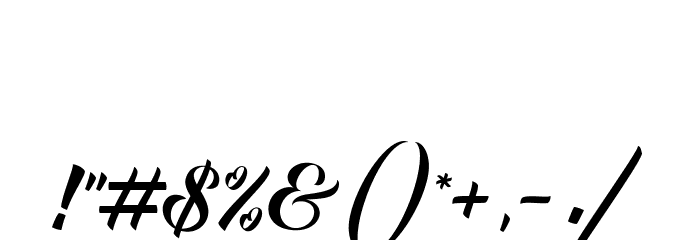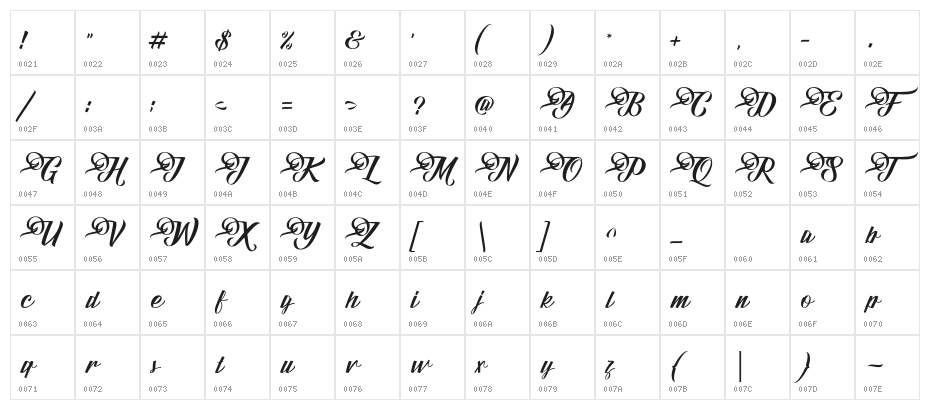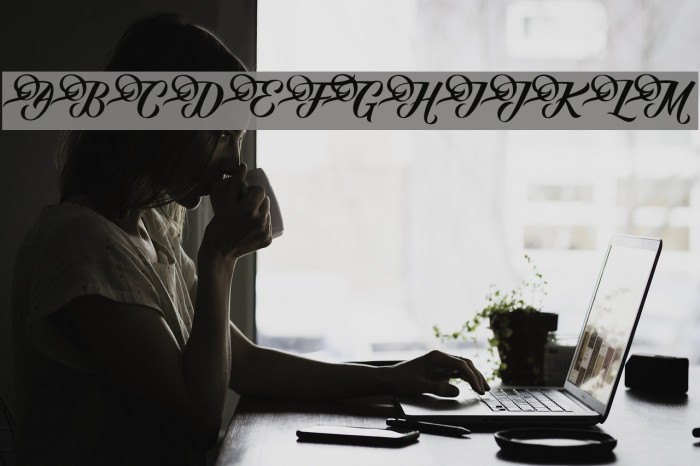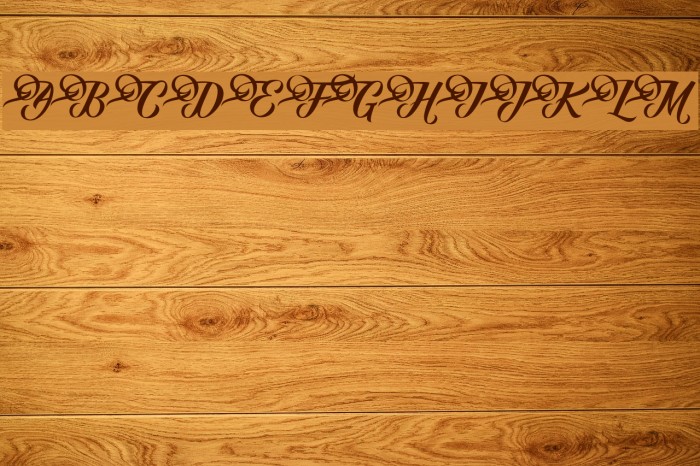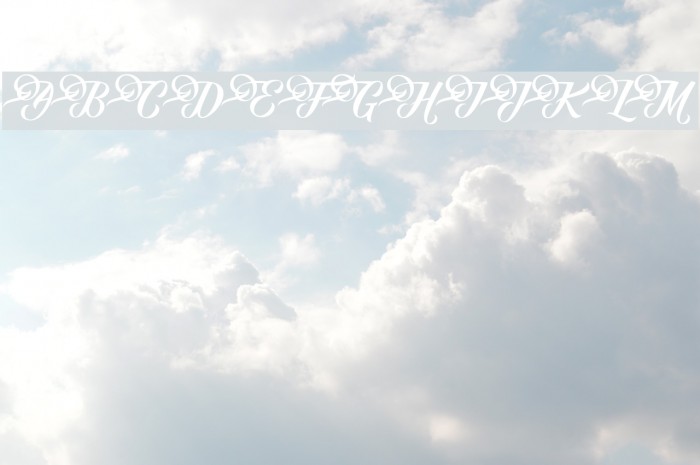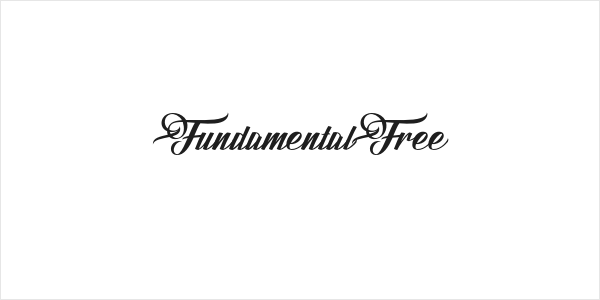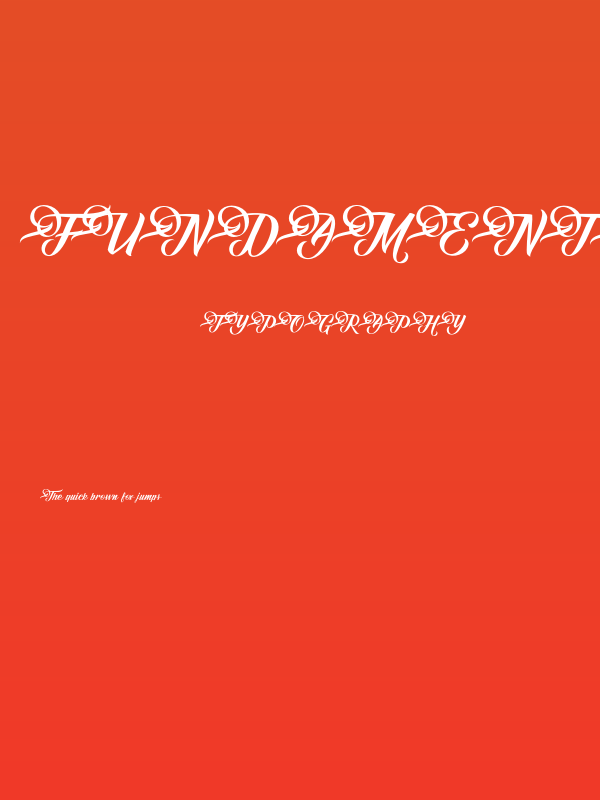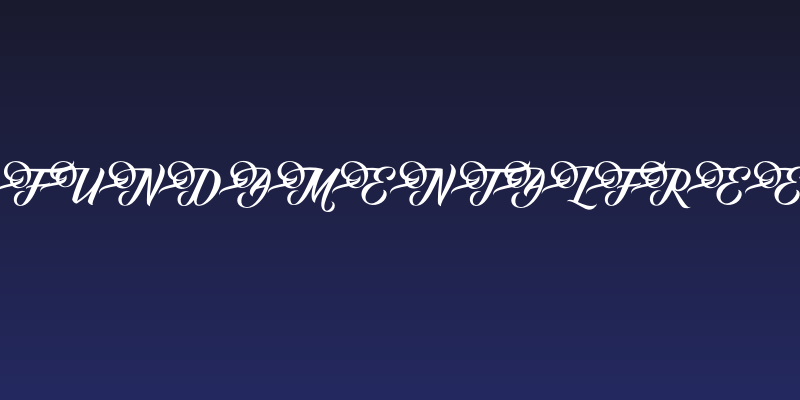
FundamentalFree Font
FundamentalFree Description
This font features an elegant and flowing script style with a classic and decorative flair. The uppercase letters are adorned with intricate loops and swirls, giving them a sophisticated and ornate appearance. The lowercase letters maintain a smooth and connected cursive form, enhancing readability while retaining a stylish look. The numbers and special characters are designed to complement the overall aesthetic, with consistent curves and embellishments. This font's unique characteristics make it suitable for projects that require a touch of elegance and formality.
| Overall Style | Classic, Decorative |
| Proposed Projects | Ideal for wedding invitations, elegant branding, formal event programs, and decorative signage. |